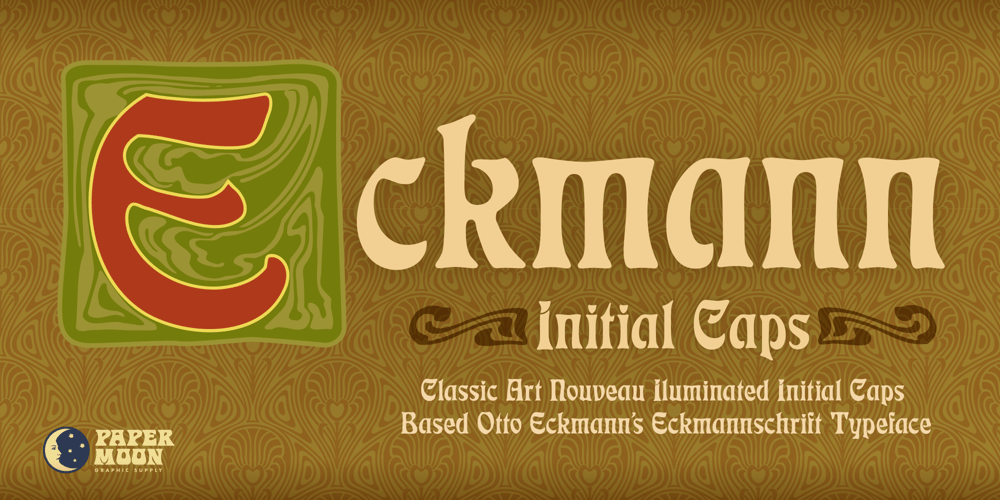
PM Eckmann Initials Font Family was designed by Scott Banks and published by Paper Moon Type & Graphic Supply. PM Eckmann Initials contains 7 styles and family package options. PM Eckmann Initials is our chromatic (layered) version of Otto Eckmann’s Eckmannschrift Initial Cap typeface designed to work with his typeface Eckmannschrift. Our version can be used for general Art Nouveau initial caps or combined with our PM Eckmannschrift typeface.